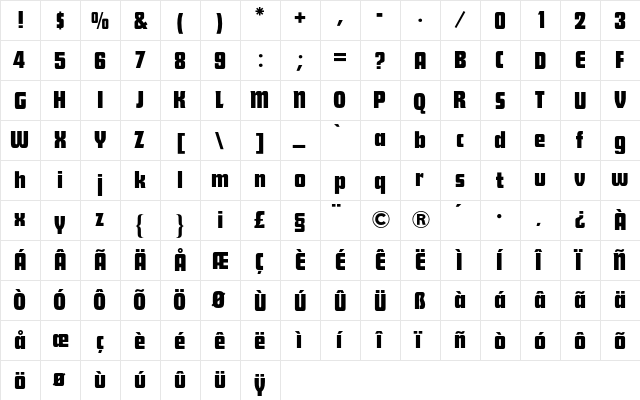
Futura Display BQ Regular
Design Context for Futura Display BQ Typeface
Futura Display BQ channels digital-age aesthetics through its sharp, structured letterforms — ideal for brands that want to signal innovation.
Pro Tip: Use Futura Display BQ in combination with a neutral sans for body text. Let it define the brand voice in headlines while keeping reading comfortable elsewhere.